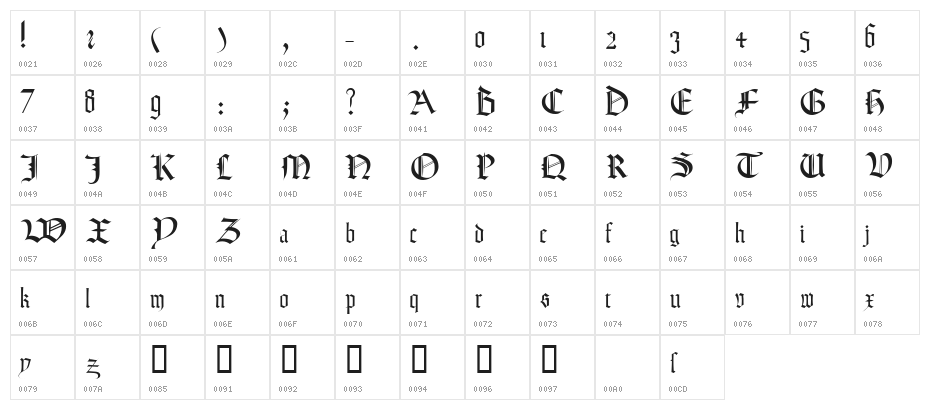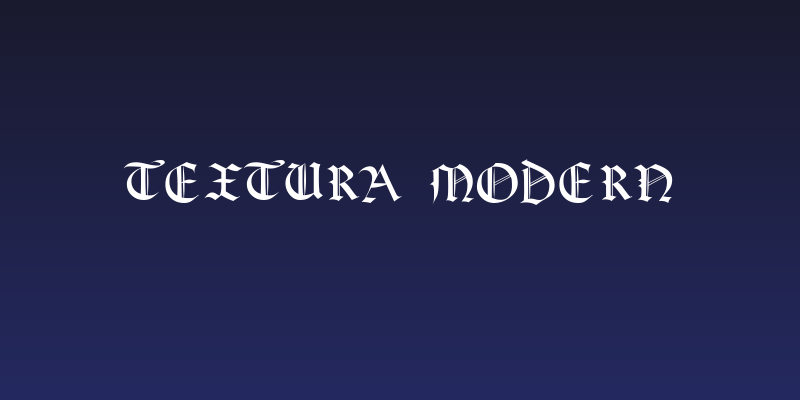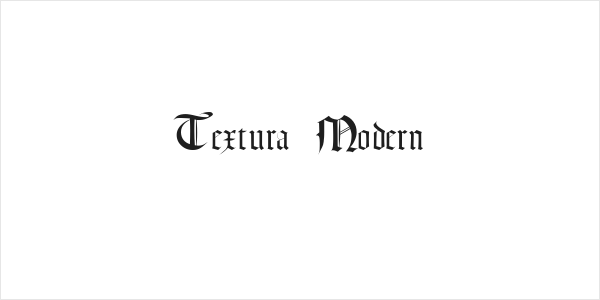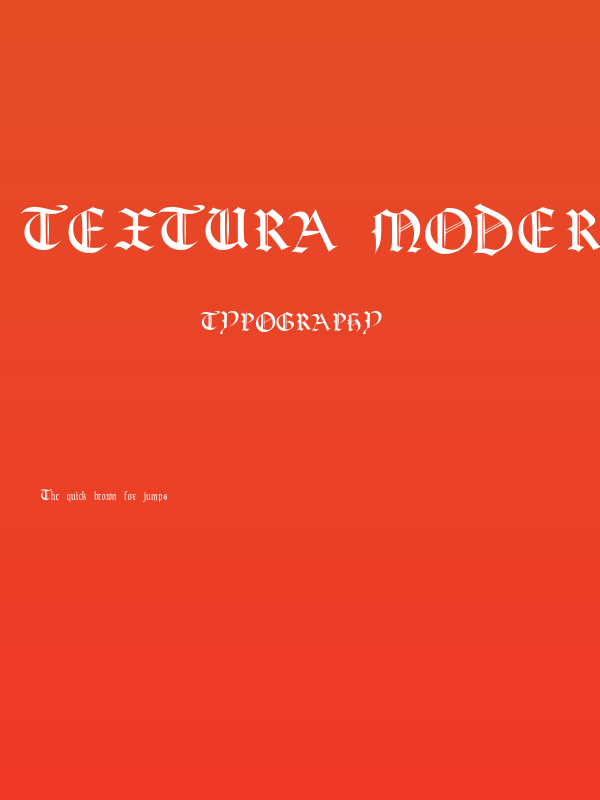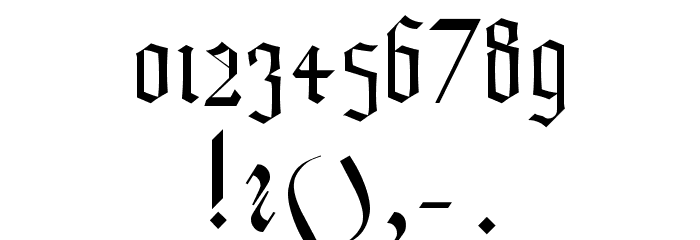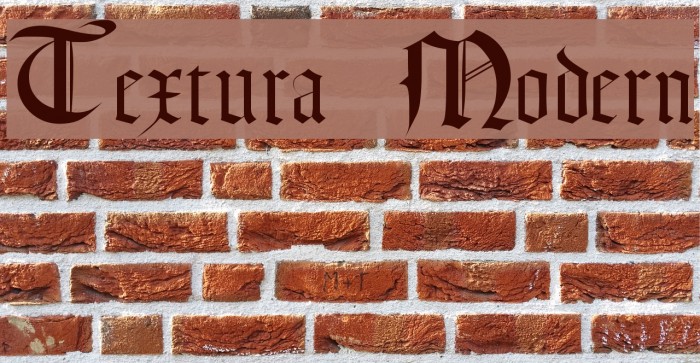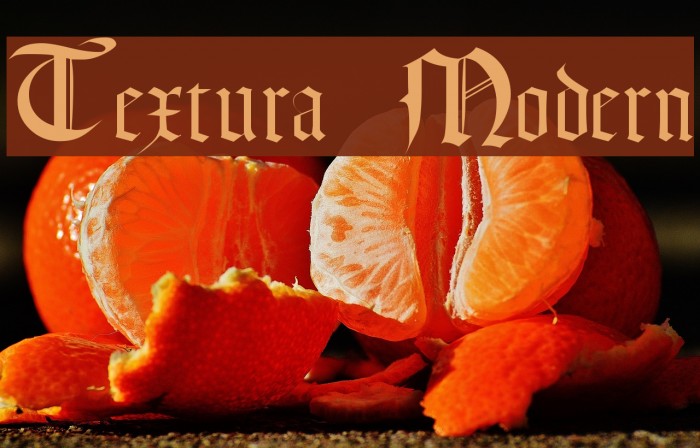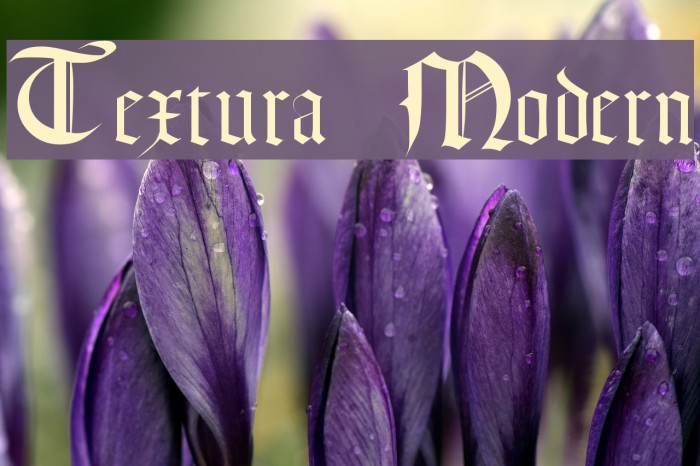
Textura Modern Font
Textura Modern Description
This font features a classic blackletter style with intricate and sharp angular strokes, reminiscent of medieval script. The uppercase letters exhibit a strong presence with their bold and elaborate design, while the lowercase letters maintain a consistent style with a slightly more subdued appearance. The numerals are distinct and follow the same ornate pattern, ensuring readability while maintaining the overall aesthetic. Special characters are designed to complement the alphabet, adding to the font's versatility. This typeface is ideal for projects that require a historical or gothic touch, offering a dramatic and sophisticated look.
| Proposed Projects | Suitable for historical documents, gothic-themed designs, book covers, posters, and branding that requires a dramatic flair. |